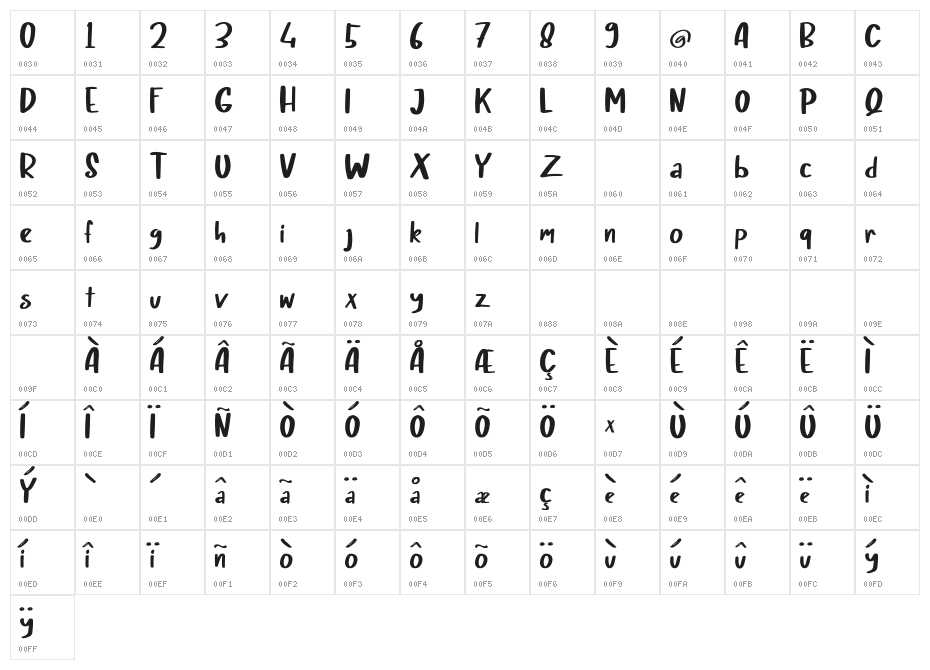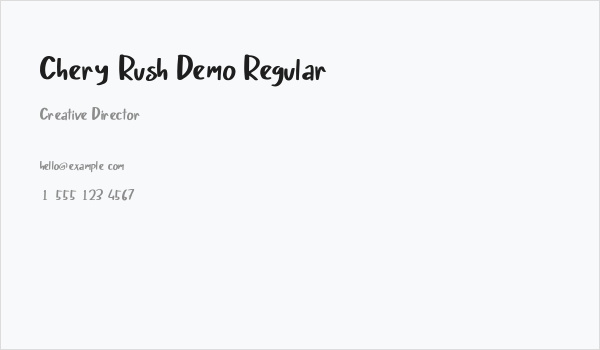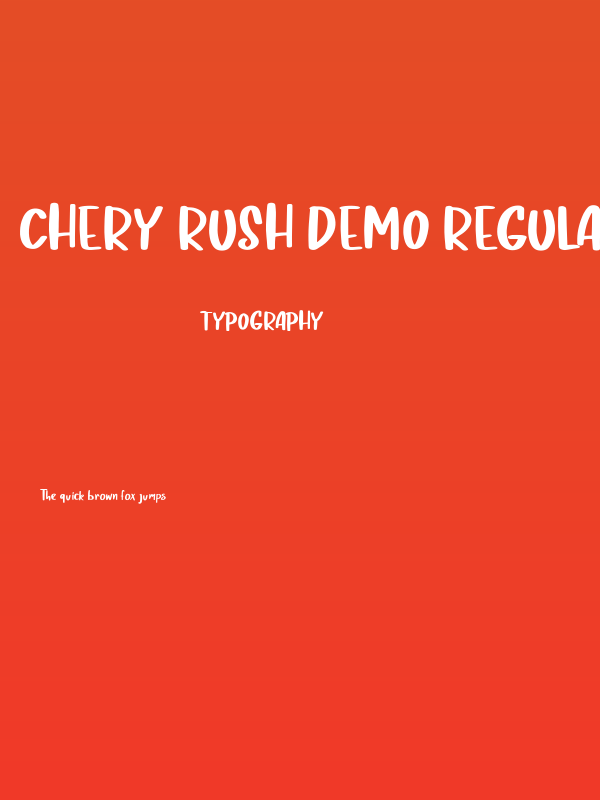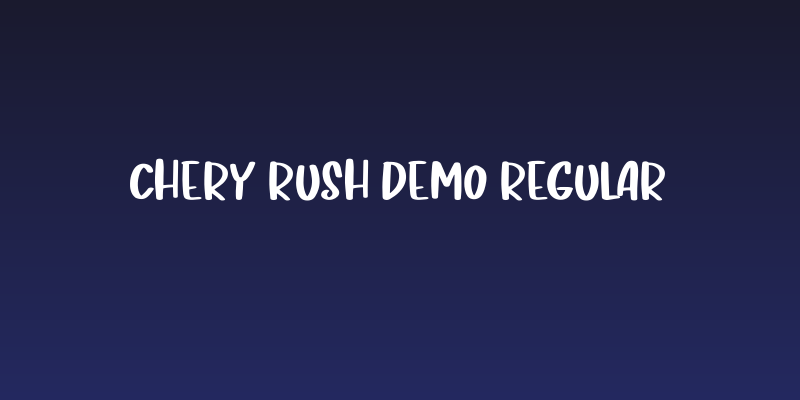
Chery Rush Demo Regular Font
Chery Rush Demo Regular Description
This font features a playful and energetic style with bold, rounded strokes that give it a friendly and approachable appearance. The characters are slightly irregular, adding a hand-drawn feel that enhances its casual and informal vibe. The uppercase letters are bold and prominent, while the lowercase letters maintain a consistent flow, making it suitable for creative and fun projects. The numbers and special characters are designed to match the overall aesthetic, ensuring a cohesive look across all text elements.
| Proposed Projects | Ideal for children's books, playful branding, greeting cards, and social media graphics. |